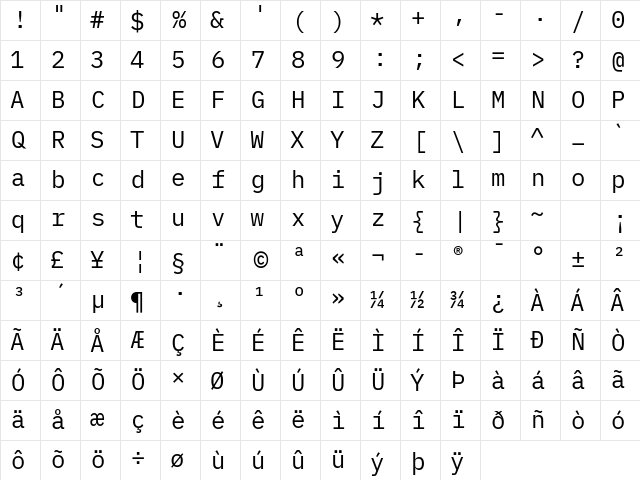
Complete iMWritingMonoS Nerd Font Mono Regular glyph index. Displaying only characters natively supported by iMWritingMonoS Nerd Font Mono Regular font.
iMWritingMonoS Nerd Font Mono uses fixed-width spacing throughout, giving it the structured, systematic character associated with coding environments and technical documentation.